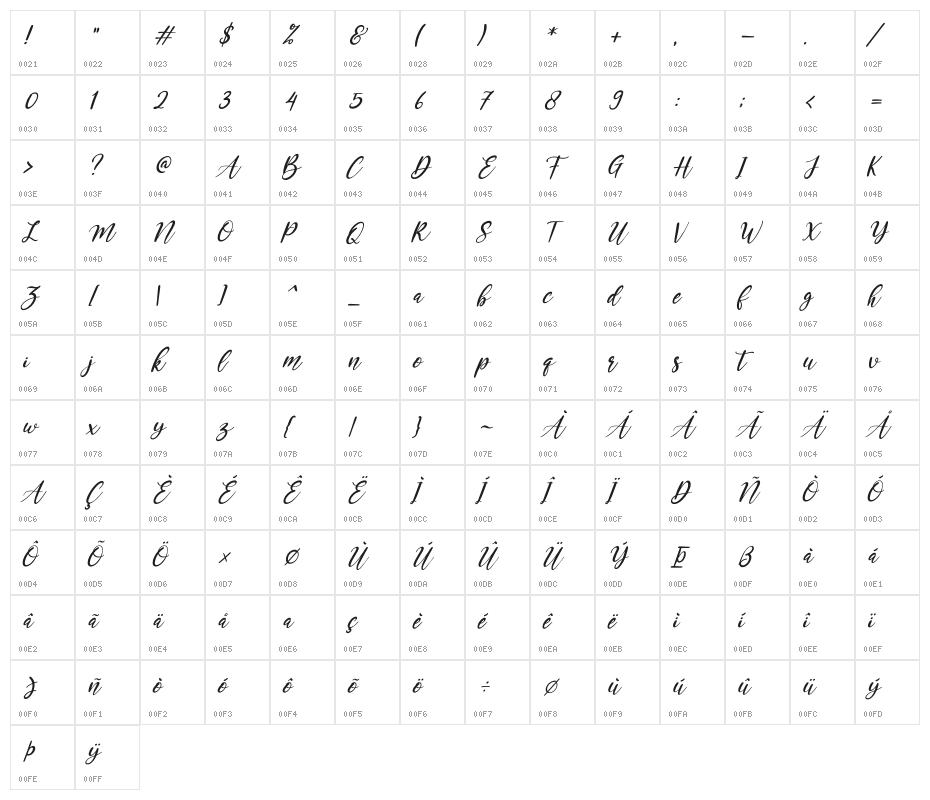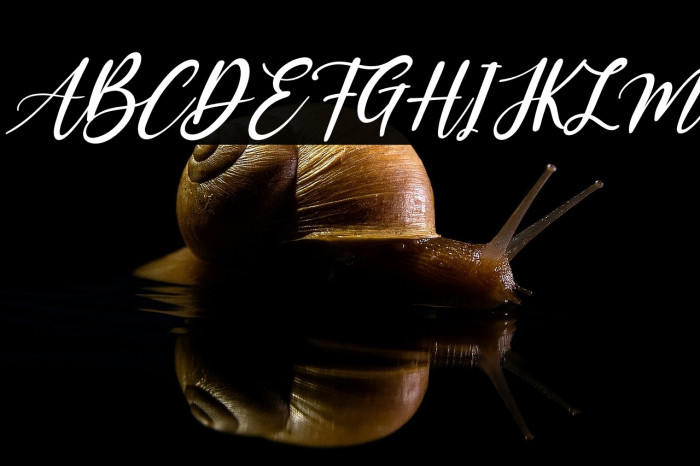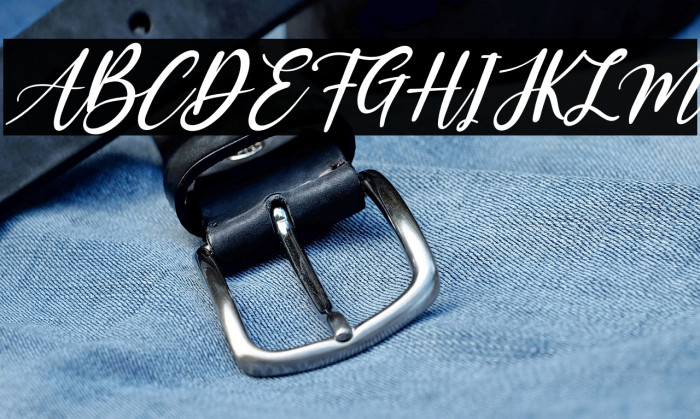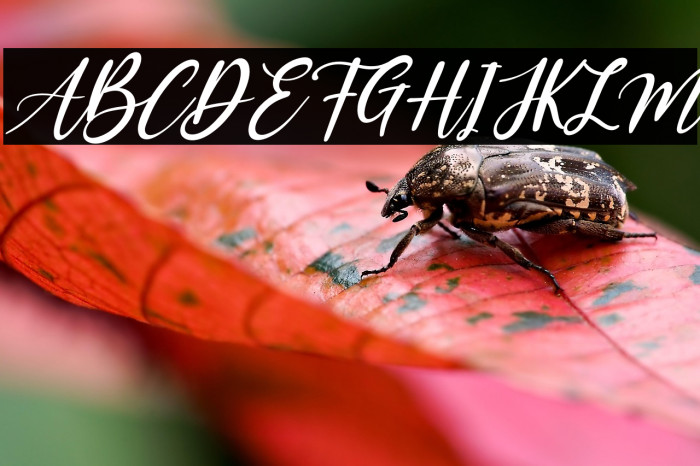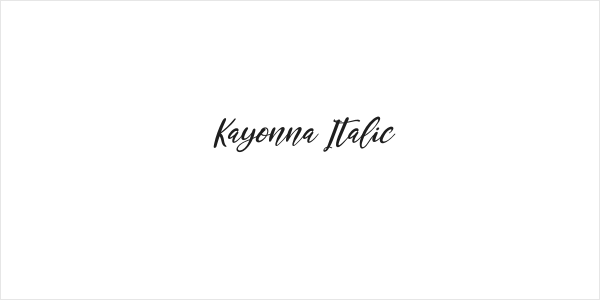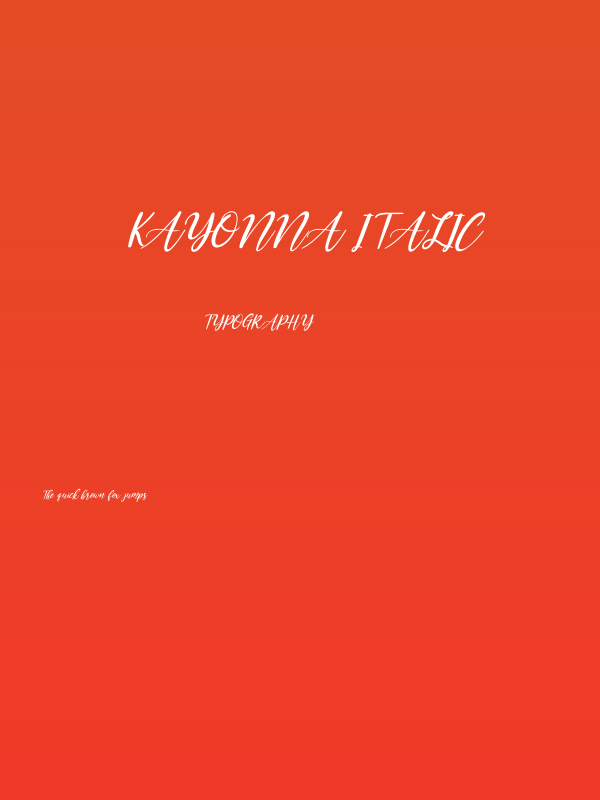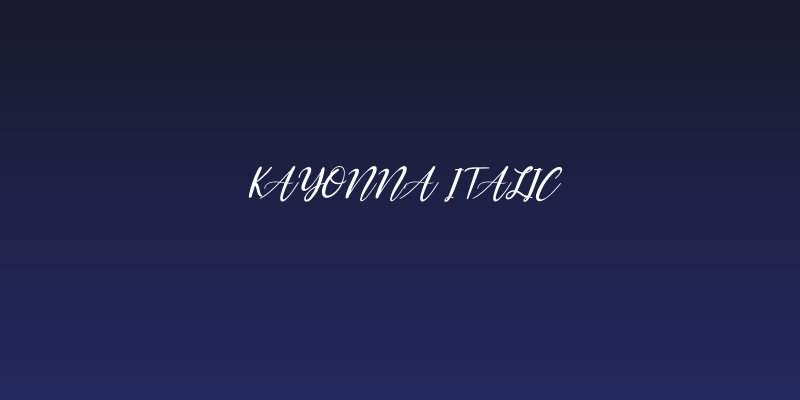
Kayonna Italic Font
Kayonna Italic Description
This font exudes elegance and fluidity with its cursive, handwritten style. The letters are gracefully connected, creating a seamless flow that is both sophisticated and approachable. The uppercase characters are bold and prominent, while the lowercase letters maintain a consistent and harmonious appearance. The numerals are clear and stylish, complementing the overall aesthetic. Special characters are thoughtfully designed, adding versatility to the font. Its italic nature enhances the sense of movement and dynamism, making it ideal for projects that require a personal touch.
| Proposed Projects | Ideal for wedding invitations, greeting cards, branding, and elegant packaging. |